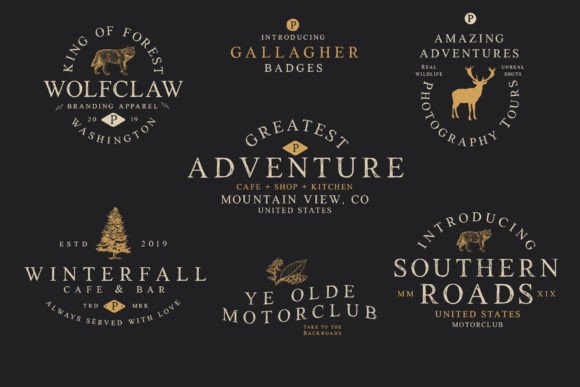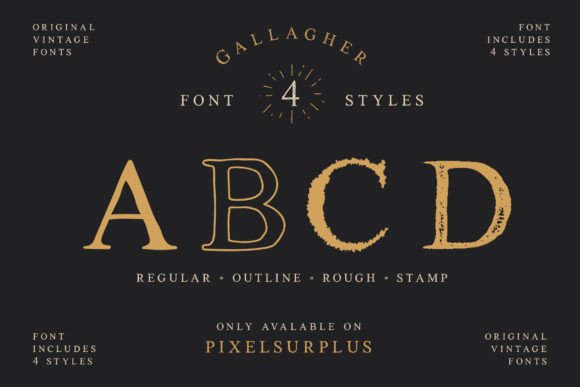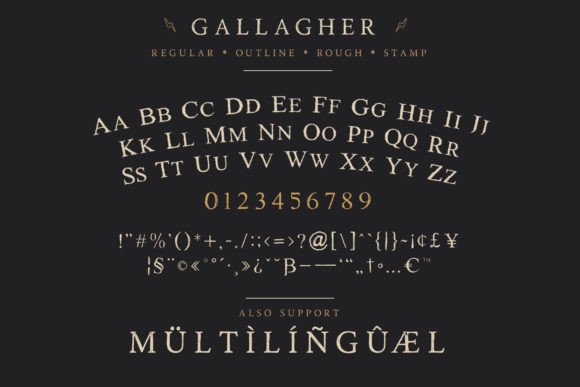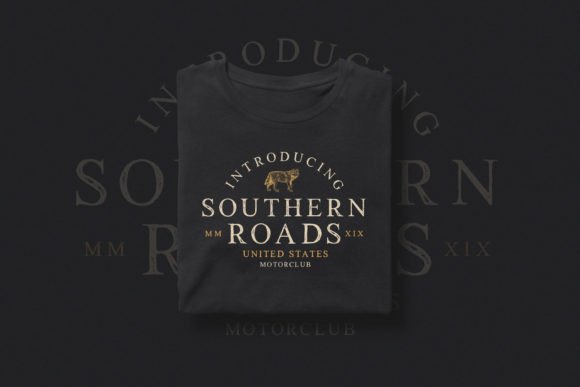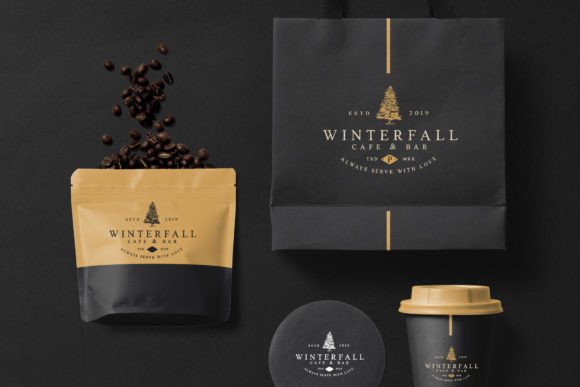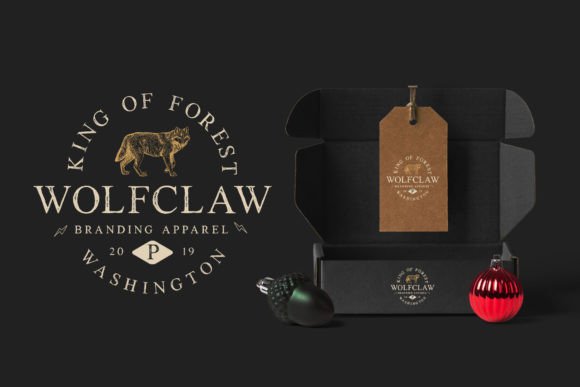
The Hunt for the Perfect Vintage Font: Discovering Gallagher
I still remember the design project that led me to discover the Gallagher font. I was working on a branding project for a craft brewery, and I needed a font that would evoke a sense of nostalgia and industrial charm. I spent hours scouring the internet for the perfect vintage font, but nothing seemed quite right. That was until I stumbled upon Gallagher – a handcrafted vintage font that has since become a staple in my design toolkit.
A Closer Look at Gallagher
Gallagher is a versatile font that comes in four styles: Regular, Rough, Stamp, and Outline. This range of styles makes it perfect for any vintage or industrial project, as you can combine styles as needed to achieve the desired look. All fonts feature large and small caps, plus multilingual characters, giving you plenty of flexibility.
What I Love About Gallagher
- ✨ Unique character: Gallagher has a distinct, handcrafted feel that sets it apart from other vintage fonts.
- ✅ Variety of styles: The four styles included in the Gallagher font make it easy to mix and match to achieve the perfect look.
- 💡 Multilingual support: With support for multilingual characters, you can use Gallagher for projects that require non-English text.
While Gallagher is an excellent font, there are a few quirks to be aware of:
- 🤔 Limited use in very small sizes: Due to its handcrafted nature, Gallagher may not be the best choice for very small font sizes, as some details may get lost.
- ⚠️ No built-in italic: Gallagher does not have a built-in italic style, which may be a limitation for some projects.
The Story Behind Gallagher
Gallagher is a font designed with a passion for vintage and industrial aesthetics. While the actual designer is unknown, it’s clear that they drew inspiration from classic signs, posters, and advertisements. The result is a font that’s both nostalgic and versatile.
- Q: What type of projects is Gallagher best suited for?
- A: Gallagher is perfect for vintage or industrial-themed projects, such as branding, packaging, and advertising.
- Q: Does Gallagher support non-English characters?
- A: Yes, Gallagher includes multilingual characters, making it suitable for projects that require non-English text.
- Q: Can I combine Gallagher with other fonts?
- A: Absolutely! Gallagher’s versatility makes it easy to pair with other fonts to create a unique look.